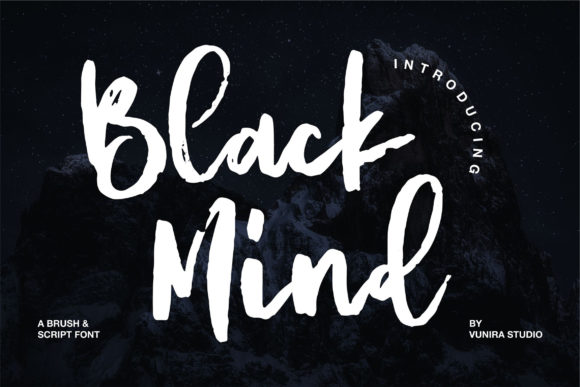
The Designer’s Delight: Unpacking the Whimsical Black Mind Font
I’ll never forget the time I was working on a project for a client who wanted a font that was both playful and elegant. I had spent hours scouring the internet for the perfect match, but nothing seemed quite right. That was until I stumbled upon the Black Mind font. It was like a breath of fresh air – whimsical, relaxed, and effortlessly cool. In this article, I’ll share my love for this font, its features, and how you can make the most of it in your designs.
An Honest Review: What I Love About Black Mind
So, what makes Black Mind so special? Here are a few things that I absolutely love:
- ✨ Unique and quirky style: Black Mind has a one-of-a-kind personality that sets it apart from other fonts.
- ✅ Ease of use: This font is incredibly easy to read and works well for both headings and body text.
- 💫 Versatility: Whether you’re designing a logo, a poster, or a social media graphic, Black Mind adapts seamlessly to any project.
Of course, no font is perfect, and Black Mind does have a few small quirks:
- 🤔 Limited formal settings: While Black Mind is amazing for creative projects, it might not be the best fit for more formal or traditional designs.
- ⚠️ Occasional kerning issues: As with any font, you might encounter some kerning issues, especially when using it in combination with other fonts.
The Story Behind Black Mind
While the origins of Black Mind are shrouded in mystery, it’s said that the font was created by a designer who wanted to capture the essence of a relaxed, creative mindset. Inspired by the world of art and music, Black Mind was born – a font that’s both playful and sophisticated.
| What type of projects is Black Mind best suited for? | Black Mind is perfect for creative projects, such as logos, posters, social media graphics, and more. It’s also great for designs that require a touch of whimsy and personality. |
| Is Black Mind a difficult font to read? | No, Black Mind is surprisingly easy to read, even at smaller font sizes. Its unique style doesn’t compromise on legibility. |
| Can I use Black Mind in combination with other fonts? | Absolutely! Black Mind pairs well with a range of fonts, from sans-serifs to serifs. Experiment with different combinations to find the perfect match for your design. |